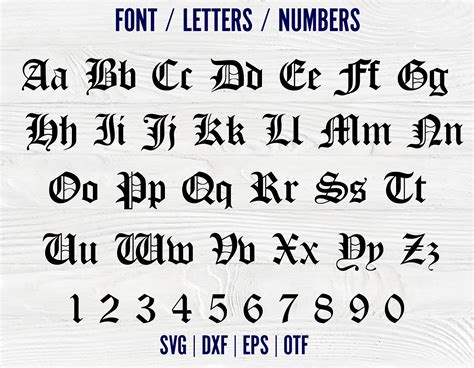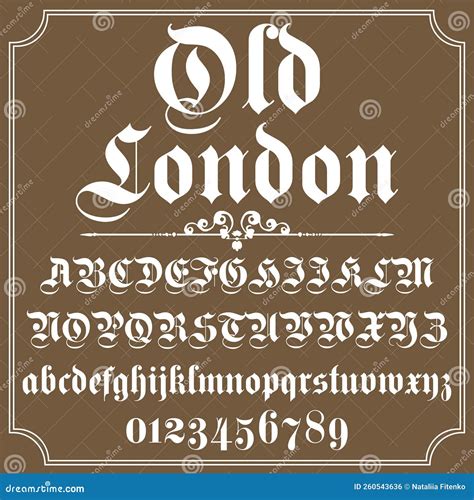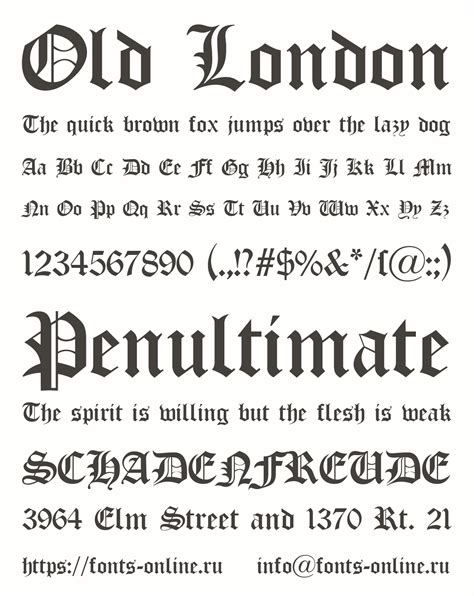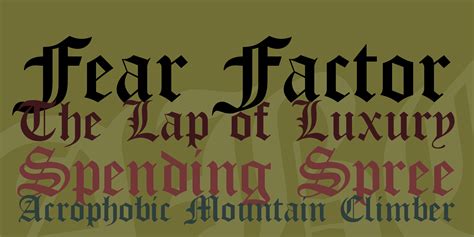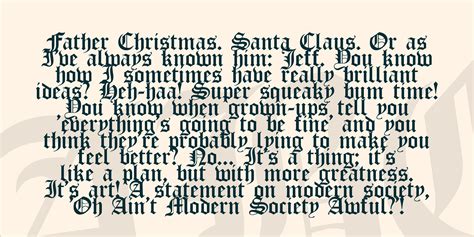
London, a city rich in history and culture, has always been a source of inspiration for designers and typographers. One of the most iconic elements of London's visual identity is its distinctive typography, often referred to as the Old London Font. This font style has been used extensively in signage, maps, and various forms of print media, capturing the essence of the city's heritage and charm.
The Evolution of the Old London Font
The Old London Font has a long and storied history, evolving over centuries to reflect the changing face of the city. Originally, the font was used in the early 19th century for street signs and public notices. Its design was characterized by bold, serifed letters that were easy to read from a distance. Over time, the font underwent several modifications to adapt to new printing technologies and design trends.
One of the most significant developments in the evolution of the Old London Font was its adoption by the London Underground. In the early 20th century, the Underground sought a typeface that would be both legible and visually appealing for its maps and signage. The result was the Gill Sans font, designed by Eric Gill, which became synonymous with the Underground and influenced the development of the Old London Font.
Characteristics of the Old London Font
The Old London Font is known for its distinctive features, which make it instantly recognizable. Some of the key characteristics include:
- Serifed Letters: The font typically features serifs, which are small lines or strokes at the ends of larger strokes in a letter. These serifs add a classic and elegant touch to the font.
- Bold and Clear: The letters are designed to be bold and clear, making them easy to read from a distance. This is particularly important for signage and maps.
- Historical Influence: The font draws inspiration from historical typography, giving it a timeless and traditional feel.
- Versatility: Despite its historical roots, the Old London Font is versatile and can be used in a variety of contexts, from modern design projects to traditional print media.
Applications of the Old London Font
The Old London Font has been used in a wide range of applications, from historical documents to contemporary design projects. Some of the most notable uses include:
- Street Signs and Maps: The font is commonly used on street signs and maps, where its legibility and clarity are essential.
- Public Transportation: The London Underground and other public transportation systems have adopted the font for their signage and maps.
- Print Media: The font is often used in books, newspapers, and magazines to evoke a sense of tradition and elegance.
- Branding and Advertising: Many businesses and organizations use the Old London Font in their branding and advertising to convey a sense of heritage and reliability.
Designing with the Old London Font
When designing with the Old London Font, there are several key considerations to keep in mind. These include:
- Legibility: Ensure that the font is used in a way that maintains its legibility. This is particularly important for signage and maps, where clarity is crucial.
- Context: Consider the context in which the font will be used. The Old London Font is versatile, but it may not be suitable for all design projects.
- Pairing: When pairing the font with other typefaces, choose complementary styles that enhance its classic and elegant feel.
- Consistency: Maintain consistency in the use of the font across different elements of a design project. This helps to create a cohesive and professional look.
Here is a table summarizing the key considerations for designing with the Old London Font:
| Consideration | Description |
|---|---|
| Legibility | Ensure the font is easy to read, especially for signage and maps. |
| Context | Consider the context in which the font will be used. |
| Pairing | Choose complementary typefaces that enhance the font's classic feel. |
| Consistency | Maintain consistency in the use of the font across different design elements. |
Inspiration from the Old London Font
The Old London Font has inspired countless designers and typographers, leading to the creation of new fonts that capture the spirit of London's heritage. Some of these fonts include:
- Johnston: Designed by Edward Johnston in 1916, this font was originally created for the London Underground and has since become a classic in its own right.
- Gill Sans: Designed by Eric Gill, this font was influenced by the Old London Font and has been used extensively in public transportation and signage.
- Futura: While not directly inspired by the Old London Font, Futura's clean and modern design contrasts beautifully with the classic elegance of the Old London Font.
In wrapping up, the Old London Font is more than just a typeface; it is a symbol of London’s rich history and cultural heritage. Its distinctive features, versatility, and timeless design make it a valuable tool for designers and a beloved icon of the city. Whether used in print media, digital design, or public signage, the Old London Font continues to captivate audiences and evoke the spirit of London.